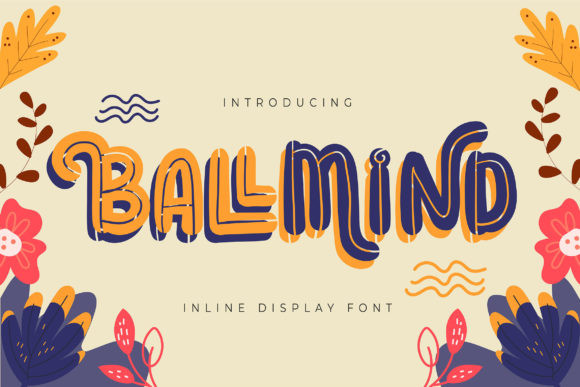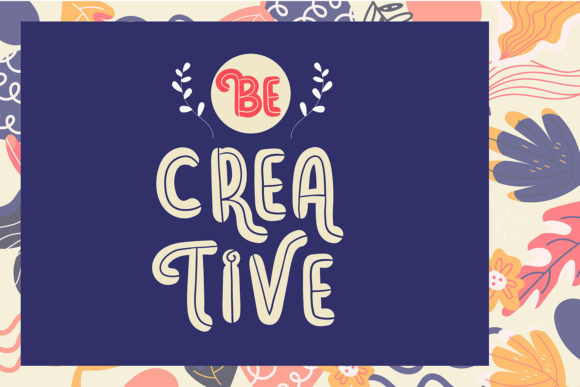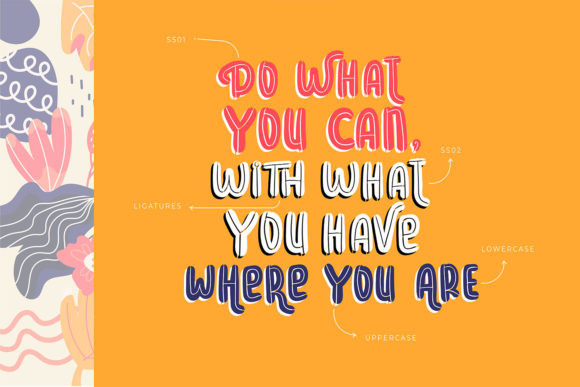
Ballmind Font
Ballmind is a playful and fun display font. Whether you’re looking for fonts for Instagram or calligraphy scripts for DIY projects, this font will turn any creative idea into a true piece of art!